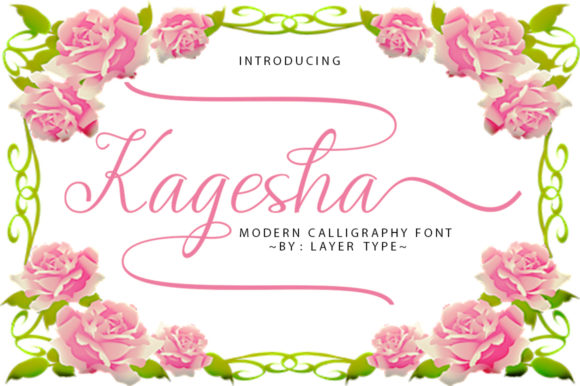
Unleash Your Creativity: Meet Kagesha Font, the Style That Speaks
In a world where individuality shines, Kagesha Font emerges as a captivating script, ready to infuse your designs with a touch of playful elegance. Inspired by the allure of modern authenticity, this font family from Layer Type is a symphony of delicate strokes and charming curves.
Kagesha is more than just a font; it's an expression of your unique style, a tool that empowers you to paint your thoughts and ideas onto the digital canvas. With its effortless flow and enchanting personality, Kagesha transforms your words into works of art.
Dive into the world of Kagesha and discover a font that dances across the page, captivating your audience with its undeniable charm. Its intricate details and graceful lines evoke a sense of wonder, drawing eyes to your designs and leaving a lasting impression.
Whether you're a seasoned designer seeking a touch of whimsy or a creative enthusiast looking to make a statement, Kagesha is your perfect companion. Its versatility knows no bounds, effortlessly adapting to a myriad of projects, from enchanting invitations to eye-catching social media posts.
Embrace the beauty of authenticity and let Kagesha elevate your creations. Express yourself with confidence, knowing that every stroke, every curve, and every letter carries the essence of your unique style.
Open the door to a world of creative possibilities with Kagesha Font. Let its playful spirit inspire you, its delicate charm captivate you, and its modern authenticity leave an unforgettable mark on your designs.